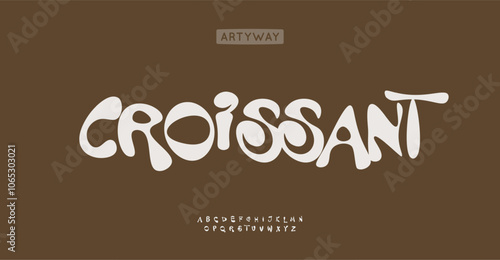
Playful whimsical alphabet, croissant-inspired letters, artistic fun font for cozy cafe or bakery logo, creative dessert branding. Groovy rounded typography with chocolatey curves. Vector typeset